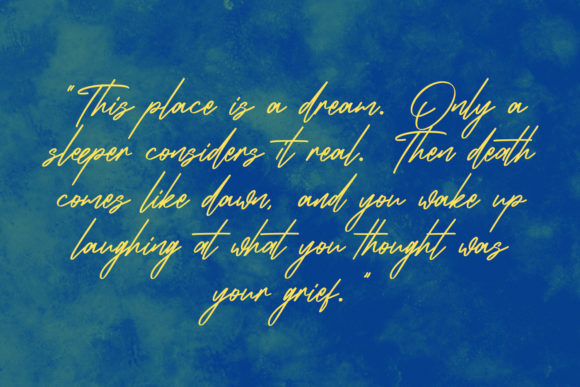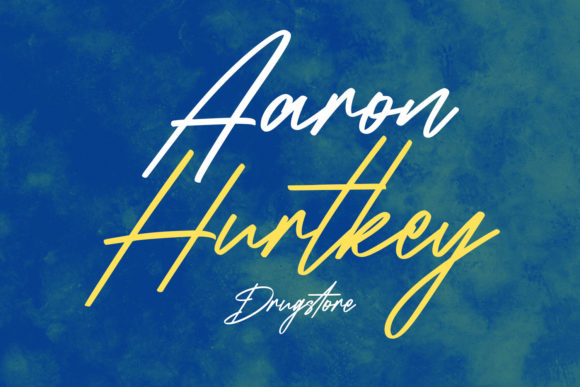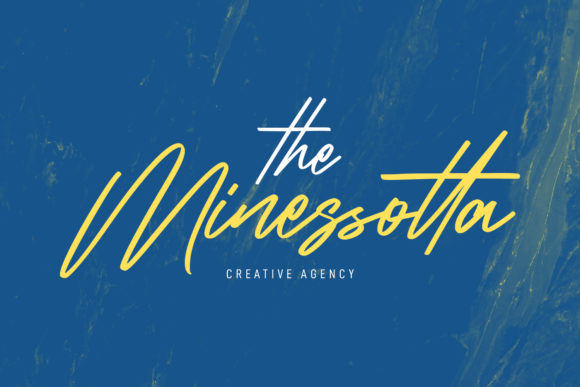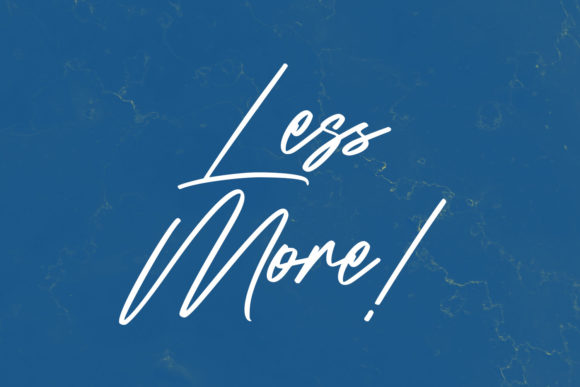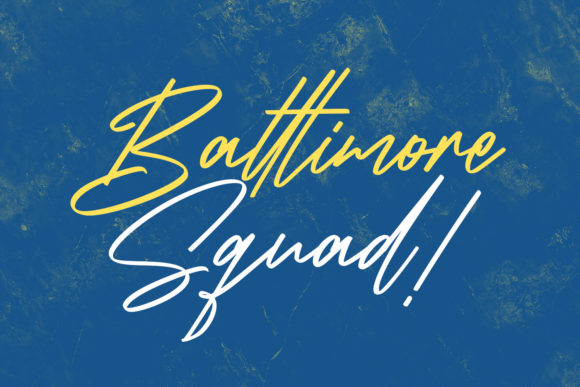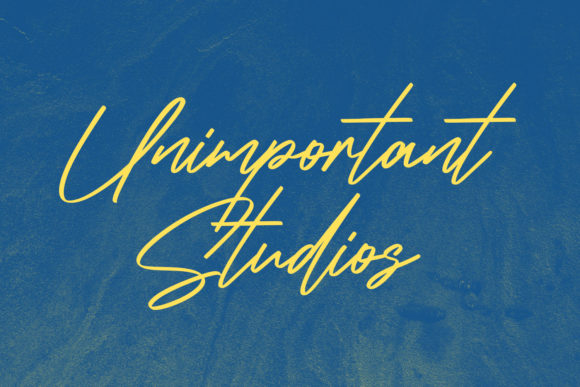
Introduction to Jillstone Font Font
Fonts play a crucial role in design, and the Jillstone Font font is a typeface that brings both character and versatility to any project. Whether you’re working on a branding project, a website, or a print design, the Jillstone Font font offers a unique style that can elevate your work.
Jillstone is a stylish and flowing handwritten font.
It will add a luxury spark to any design project that you wish to create The only limit is your imagination.
Key Features of Jillstone Font Font
Why Choose Jillstone Font Font?
The Jillstone Font font is more than just a typeface – it’s a design tool that helps you communicate your message with style and clarity. Its unique character set and versatile design make it suitable for a wide range of applications, from elegant invitations to bold headlines.
With its carefully crafted letterforms and balanced proportions, the Jillstone Font font ensures readability and visual appeal across all mediums.
What makes Jillstone Font font special?
The Jillstone Font font stands out with its unique design, exceptional readability, and versatility across various design applications.